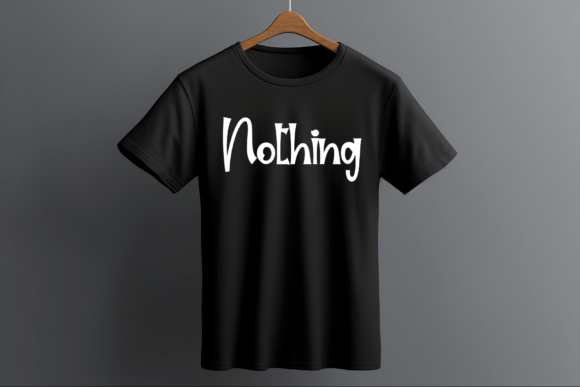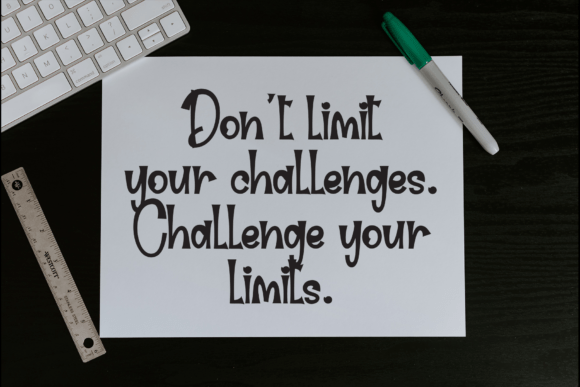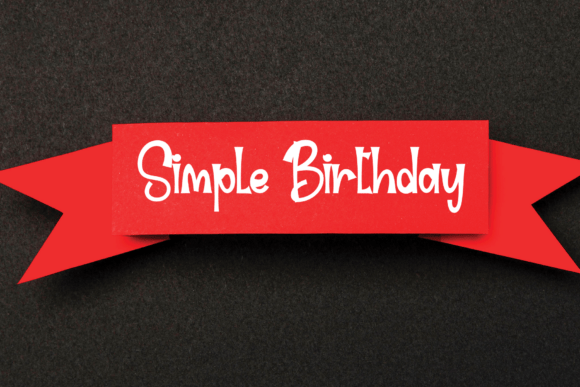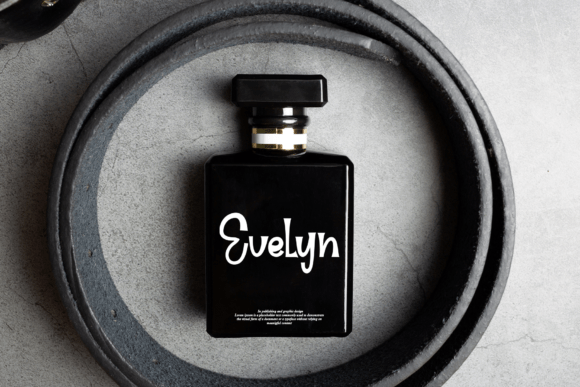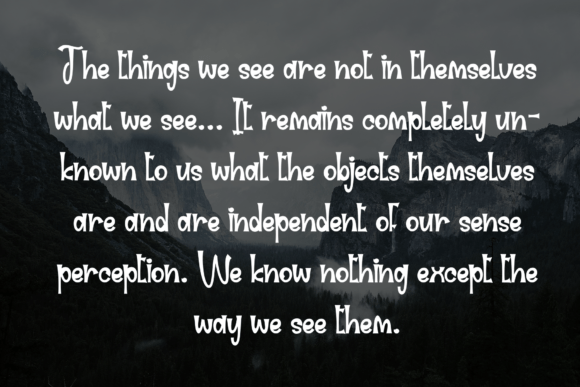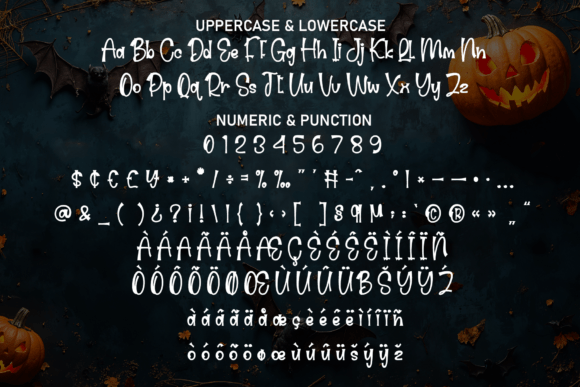
Happy Halloween Font: Add a Spooky Touch to Your Designs
Are you looking for a unique and creative font to add a spooky touch to your designs this Halloween season? Look no further than our Happy Halloween Font! Our font is specially designed to provide you with an extraordinary experience, perfect for a wide range of projects, from wall displays to wedding invitations, social media posts, logos, advertisements, product packaging, and more.
What Makes Our Happy Halloween Font Special?
Our Happy Halloween Font is a carefully crafted, creative product that is sure to impress. With its latest style letters, this font is perfect for designers and crafters who want to add a touch of personality to their work. Whether you’re creating a spooky Halloween-themed design or just want to add some flair to your project, our font is the perfect choice.
Use Our Font for a Variety of Projects
Our Happy Halloween Font is versatile and can be used for a wide range of projects, including:
- Wall displays: Create eye-catching wall displays for your home or office with our unique font.
- Wedding invitations: Add a touch of elegance and sophistication to your wedding invitations with our beautiful font.
- Social media posts: Stand out on social media with our eye-catching font, perfect for logos, graphics, and more.
- Advertisements: Create attention-grabbing ads with our bold and stylish font.
- Product packaging: Add a personal touch to your product packaging with our unique font.
- Product designs: Create stunning product designs with our versatile font.
- Labels: Create custom labels with our easy-to-use font.
- Photography: Add a touch of personality to your photos with our font, perfect for watermarks and more.
- Invitations: Create beautiful invitations for any occasion with our elegant font.
- Stationery: Add a personal touch to your stationery with our unique font.
Why Choose Our Happy Halloween Font?
There are many reasons to choose our Happy Halloween Font for your next project. Here are just a few:
- Unique and creative: Our font is carefully crafted to provide a unique and creative touch to your designs.
- Versatile: Our font can be used for a wide range of projects, from wall displays to social media posts.
- High-quality: Our font is of the highest quality, ensuring that your designs look professional and polished.
| Font Name | Happy Halloween Font |